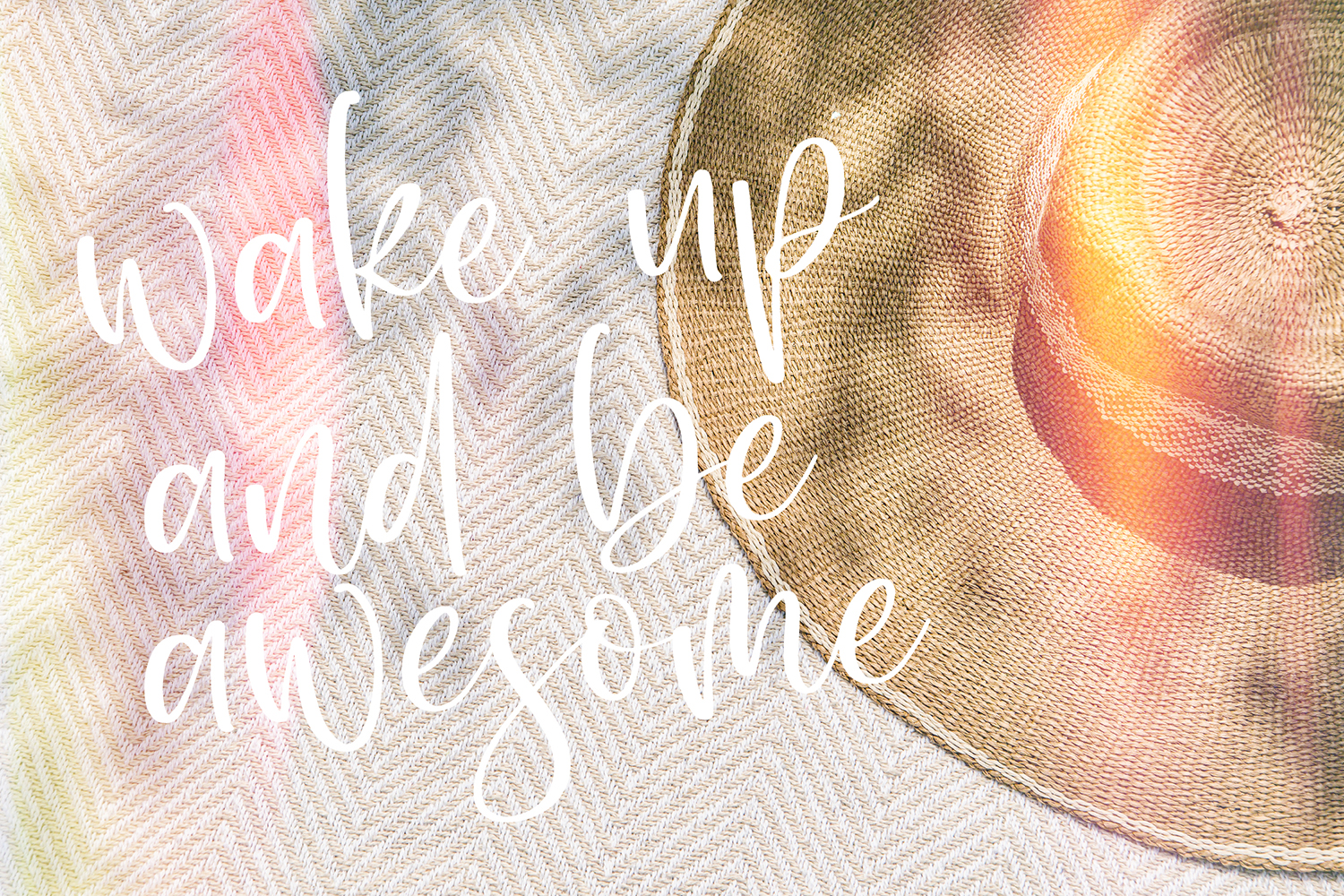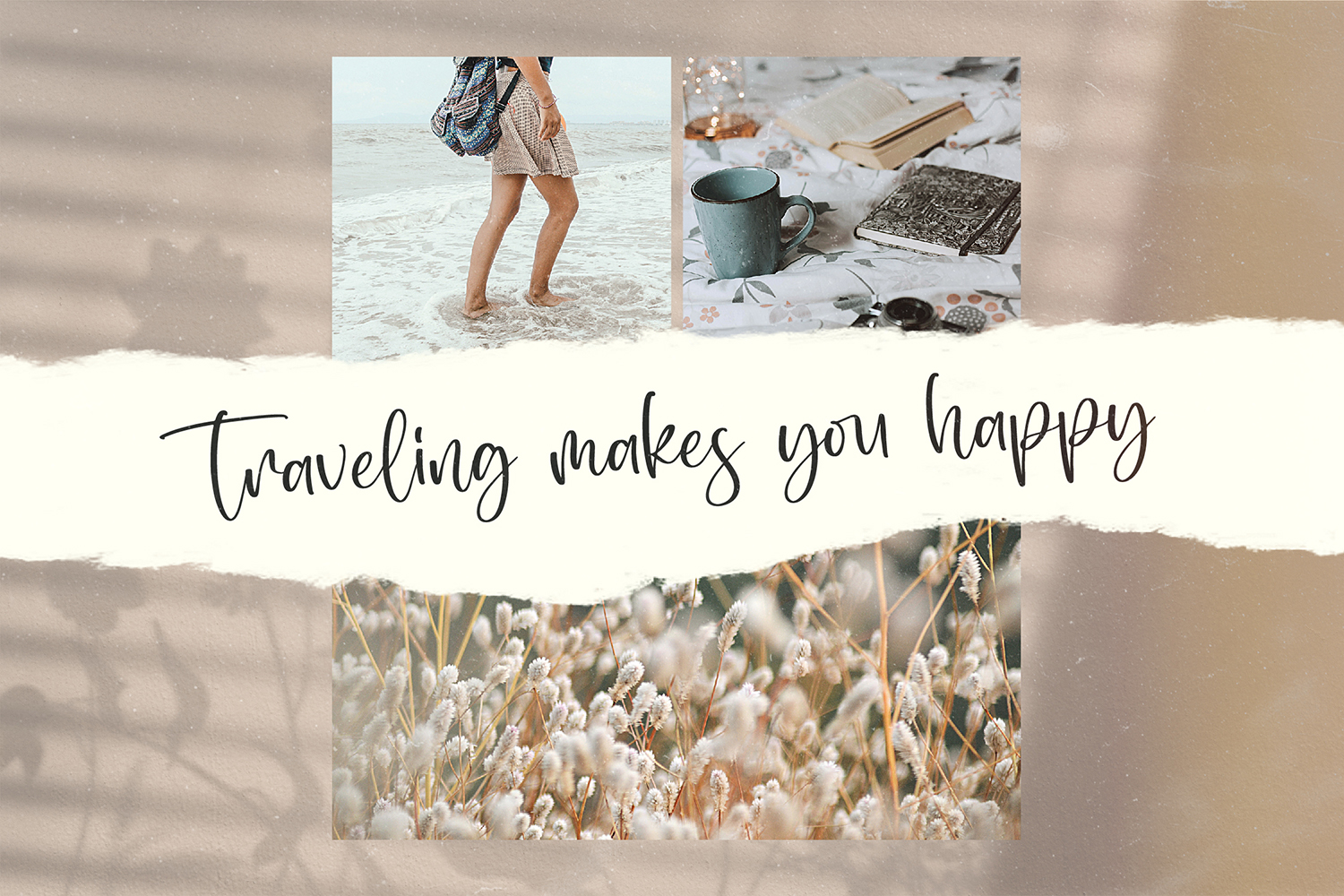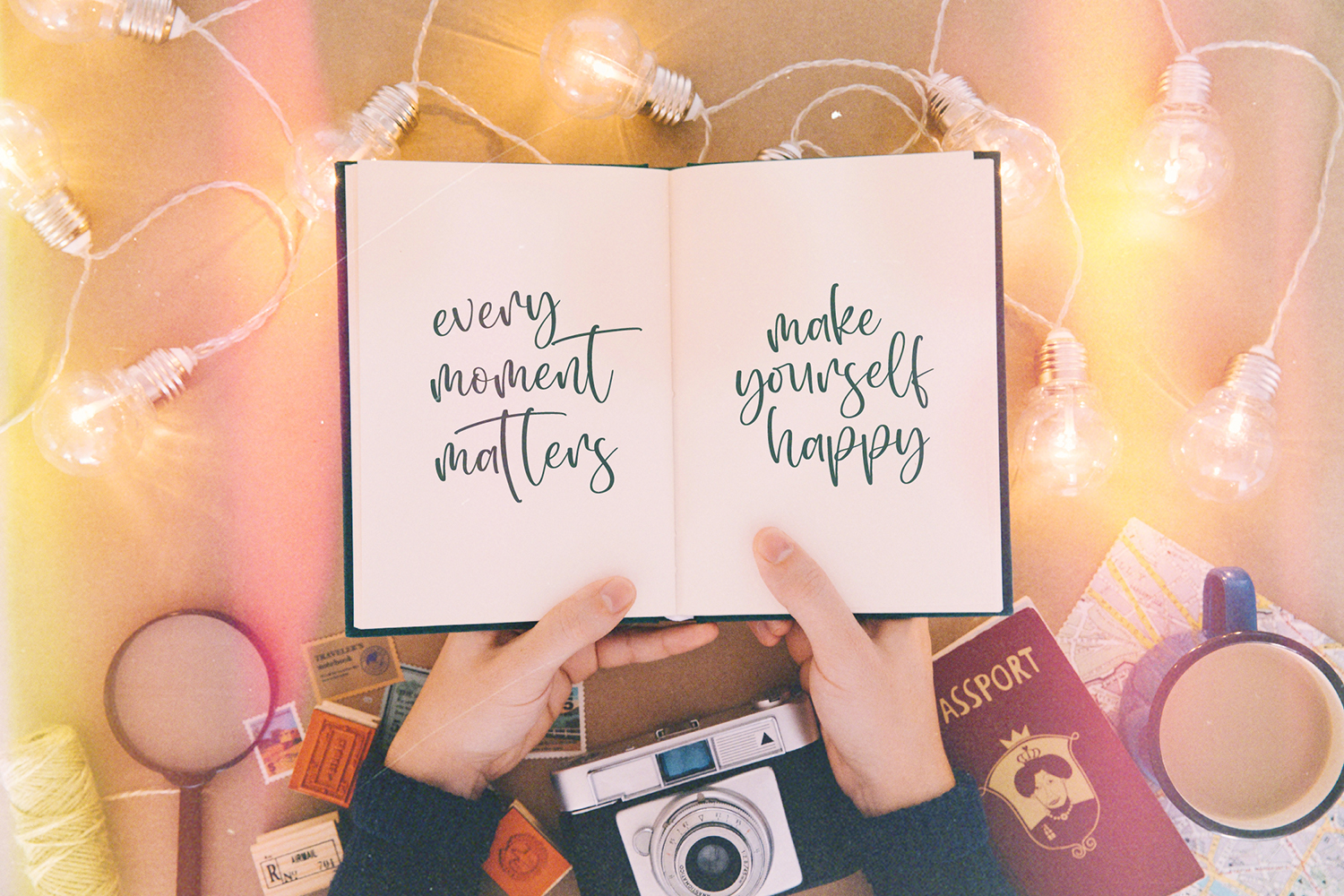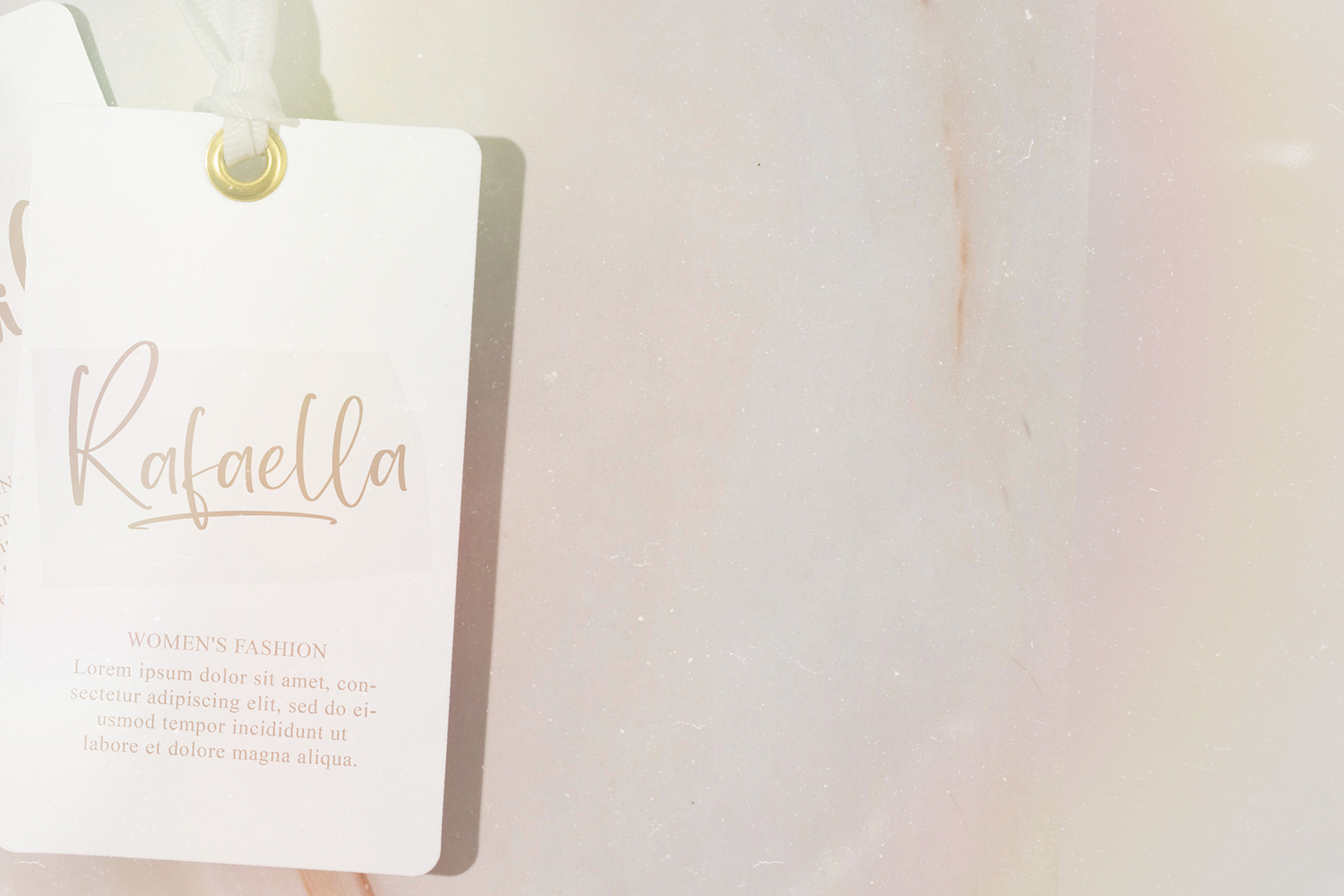
Roselland Free Font
Discover the allure of Roselland Free Font, a stunning script font designed to enhance a variety of projects. Whether you’re working on logos, branding, homeware designs, product packaging, mugs, quotes, posters, shopping bags, t-shirts, book covers, name cards, invitation cards, greeting cards, labels, photography, watermarks, special events, or any other lovely project requiring an exquisite script, Roselland brings a beautiful touch to elevate your creative endeavors. This free typeface was designed by a talentedΒ Glorytype Studio. If you like it don’t forget to check out the full version.